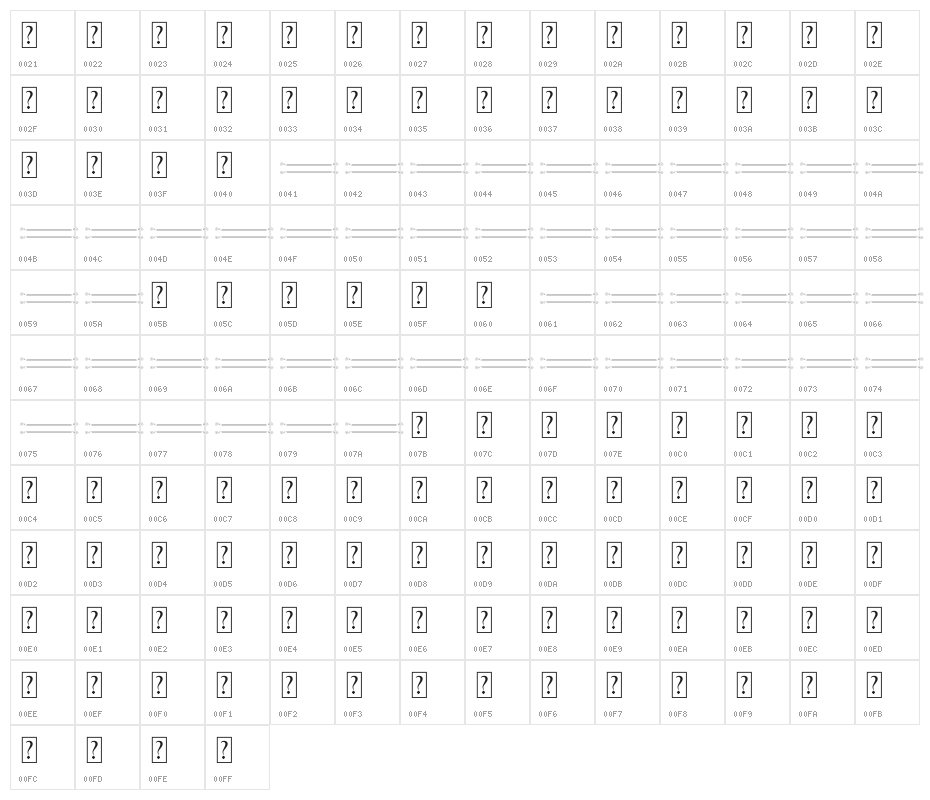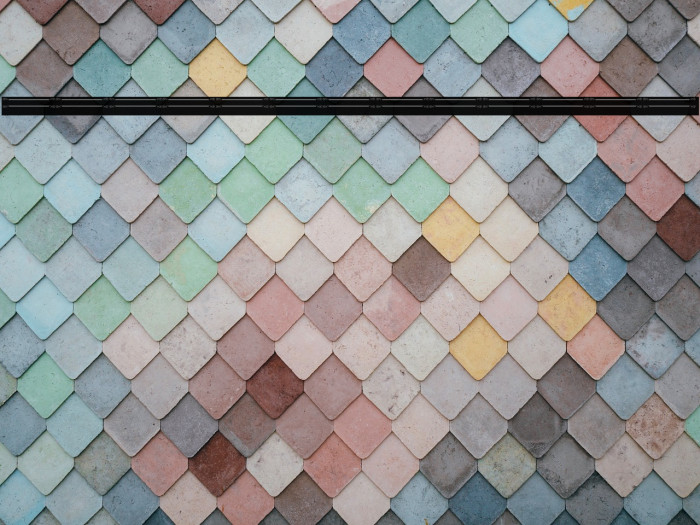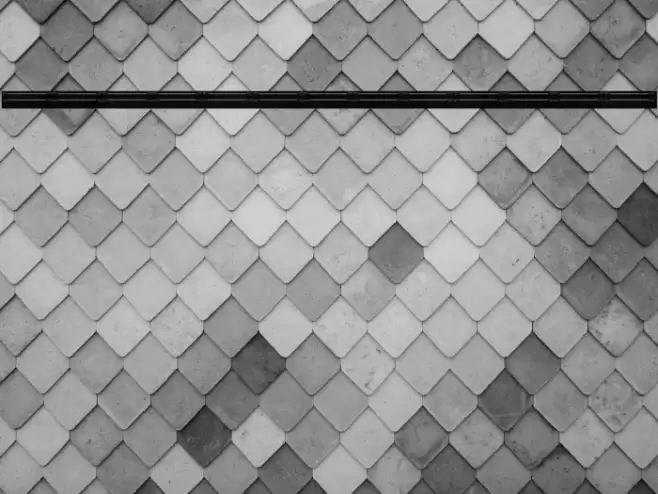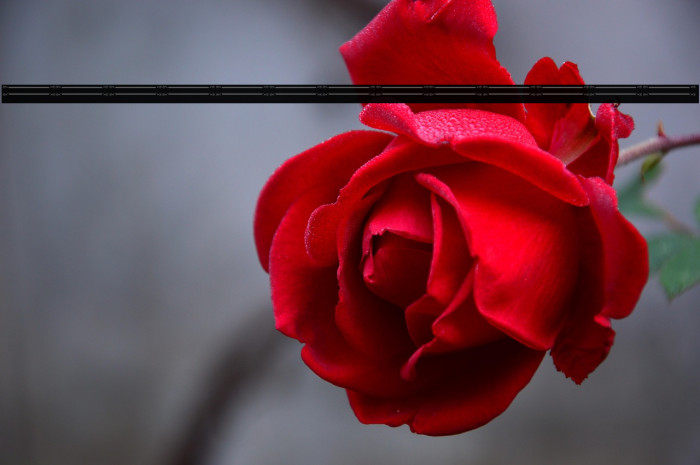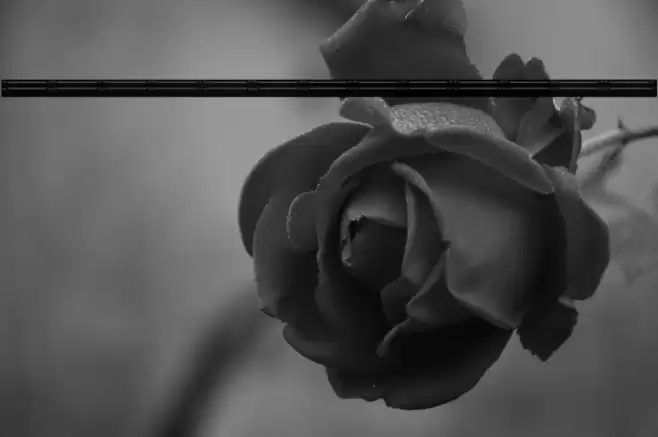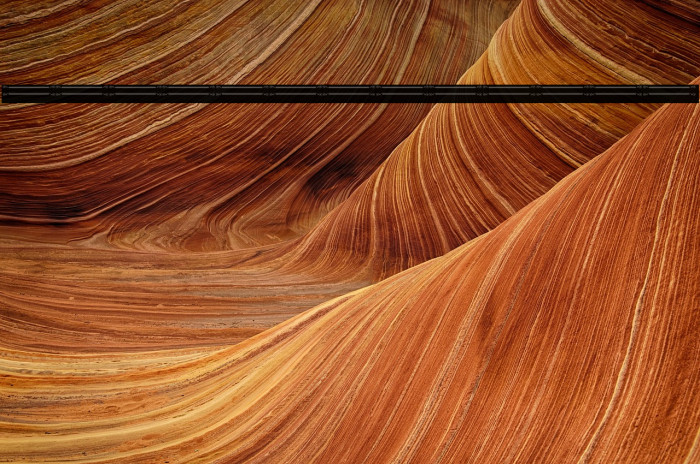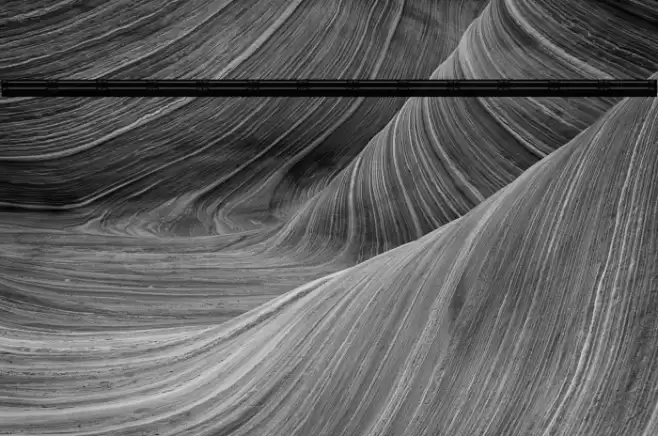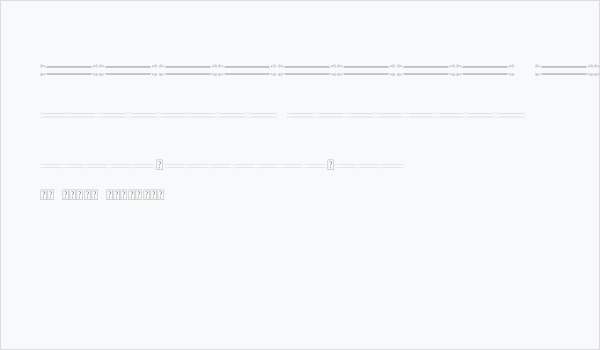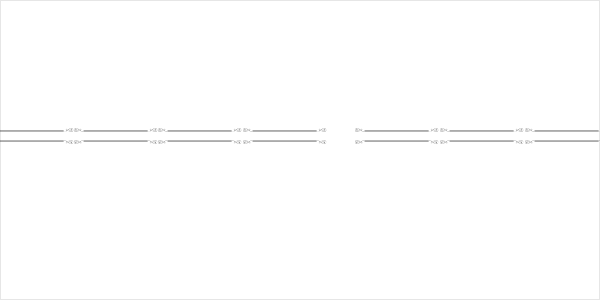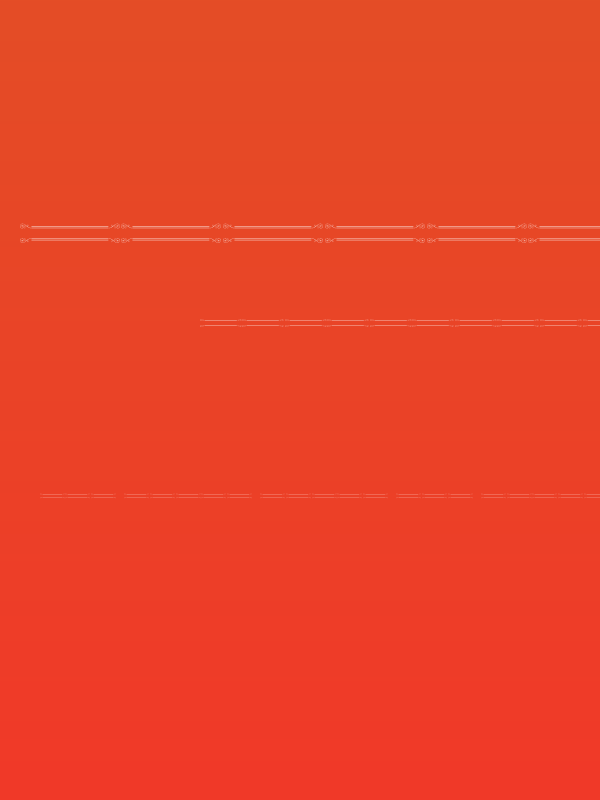
Flourish Divider Font
Flourish Divider Description
This image contains decorative horizontal divider lines with subtle flourishes, as well as a series of rectangular boxes each containing a large, stylized question mark. The dividers are thin with ornate, symmetrical embellishments, while the question marks are bold and geometric, centered within their boxes.
| Overall Style | Decorative, Elegant |
| Use Case | Dividers, Decorative elements, Themed graphics |
| Proposed Projects | Invitations, certificates, section breaks in print or web design, decorative accents, mystery or quiz-themed graphics. |